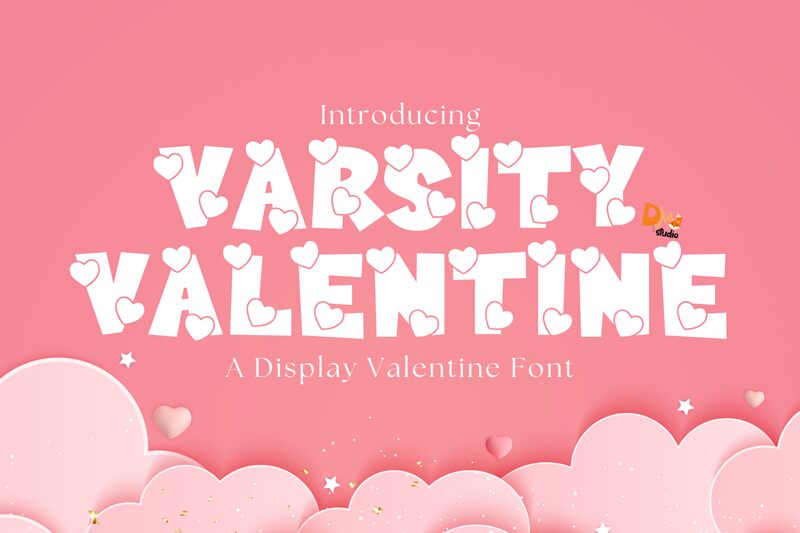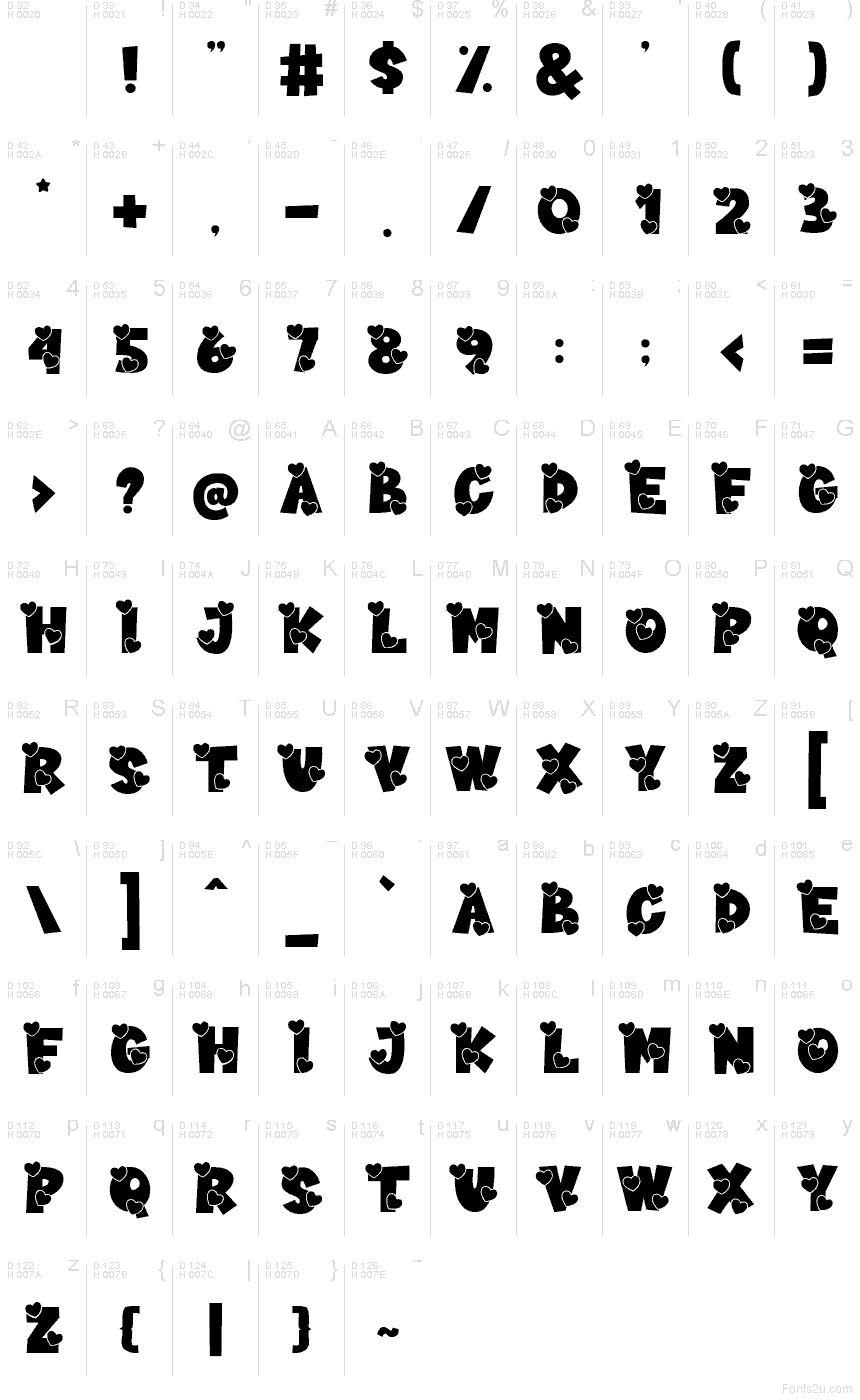
Varsity Valentine
Varsity Valentine font by DM Letter Studio - Dimas Prasetyo is a free holiday valentine typeface that turns bold varsity lettering into a candy-sweet love note. Chunky, collegiate-style letters are packed with tiny hearts and playful cutouts, so every word feels like it’s been doodled in the margins of a notebook. The shapes are dense and inky, giving your headlines a strong, poster-like impact while still feeling soft, fun, and romantic.
Using Varsity Valentine, you can nail everything from classroom Valentine cards and party invites to playful social posts, gift tags, stickers, and themed merch. This free font shines on big titles and phrases; pair it with a clean sans serif for body text so the heart-filled letters stay readable and striking. Try it large and spaced out a bit to let those details breathe and really show off.